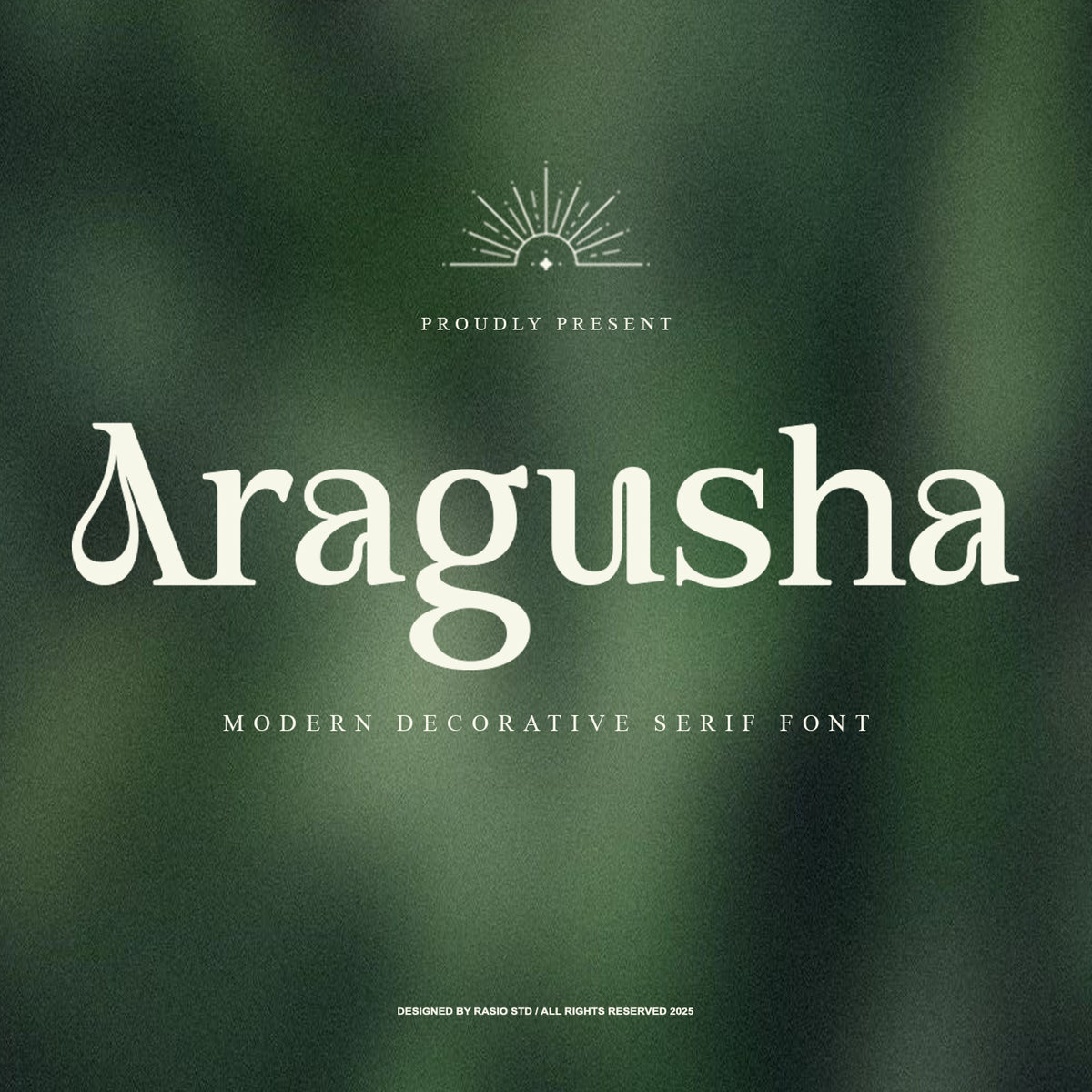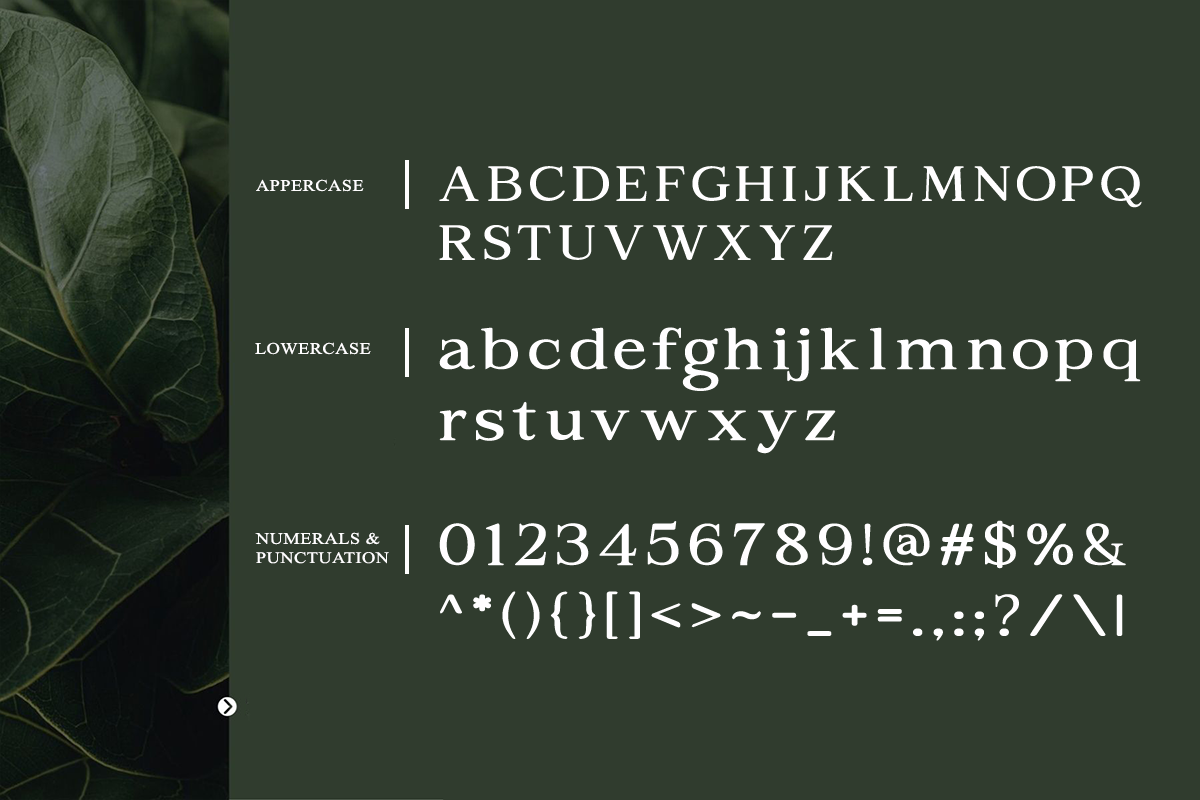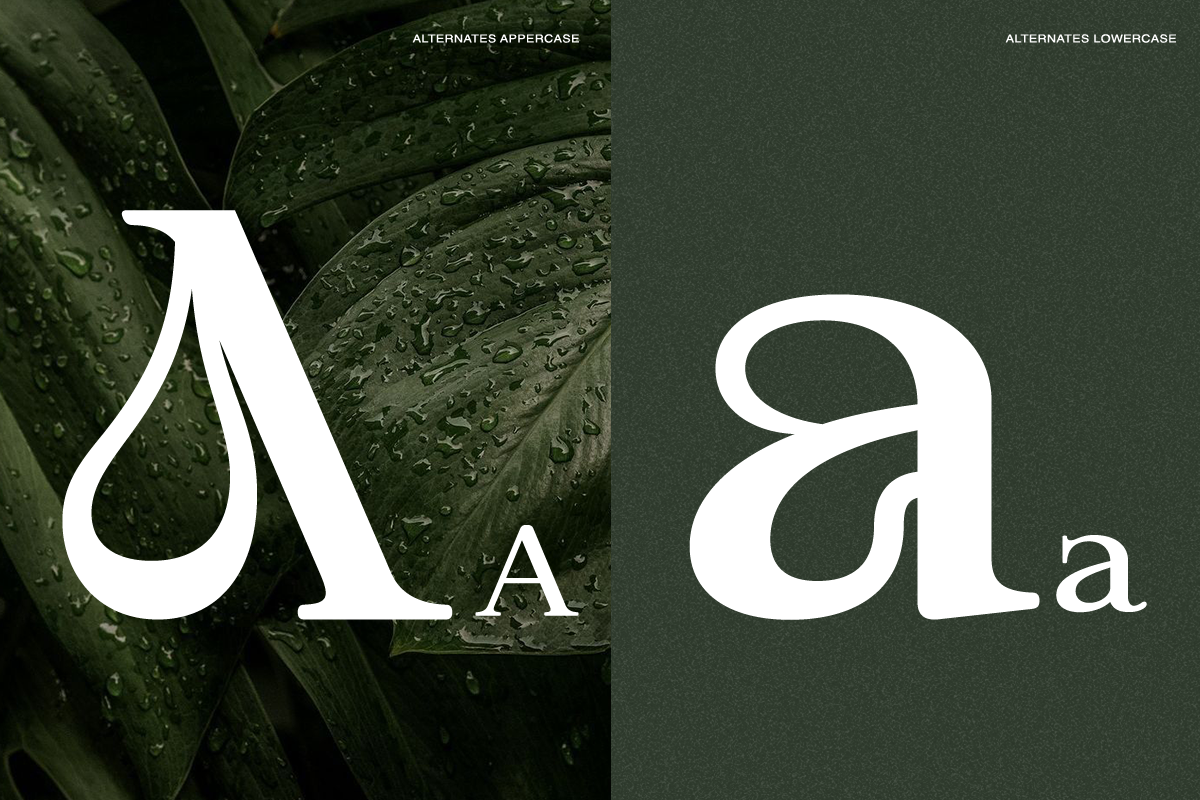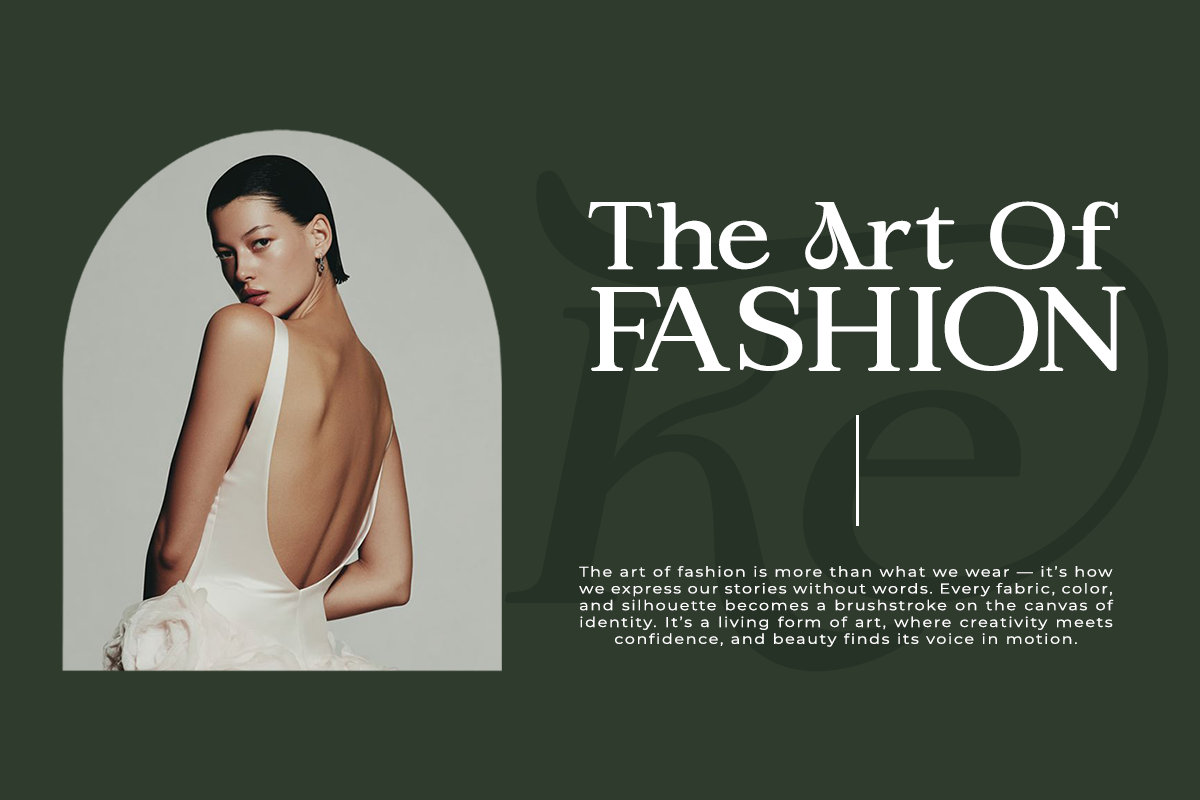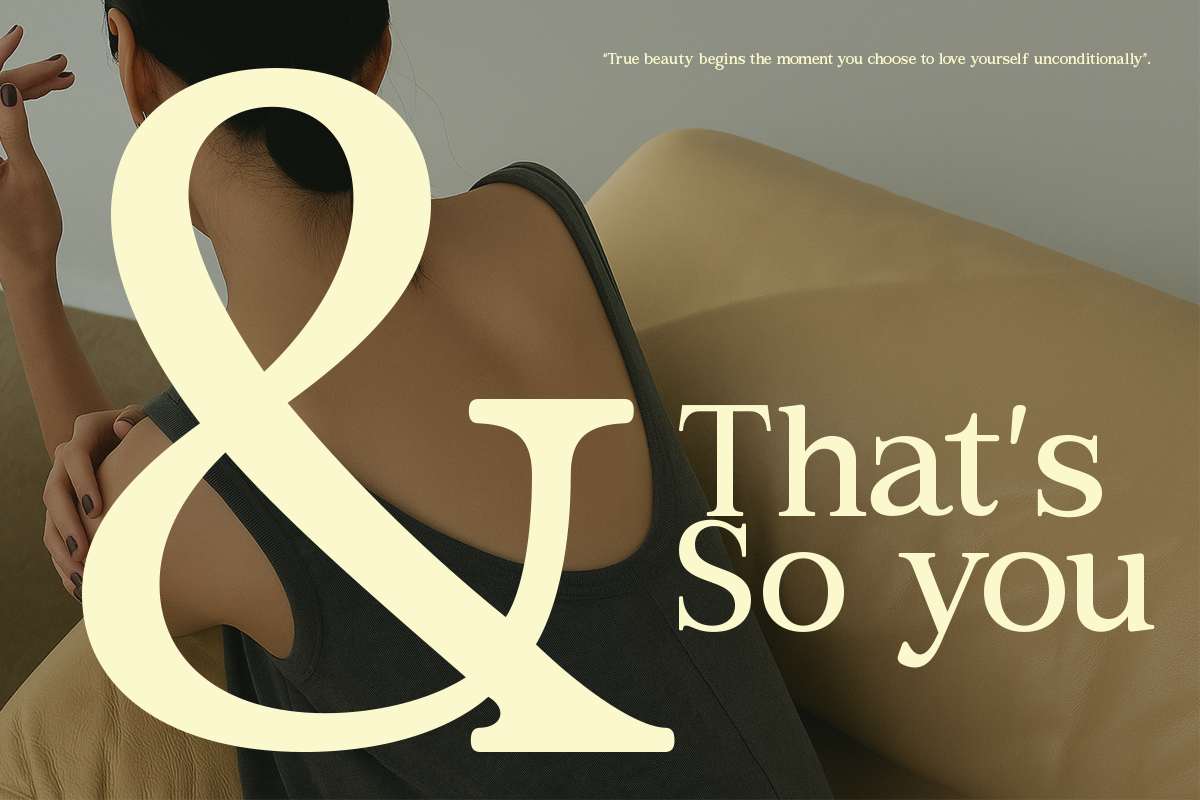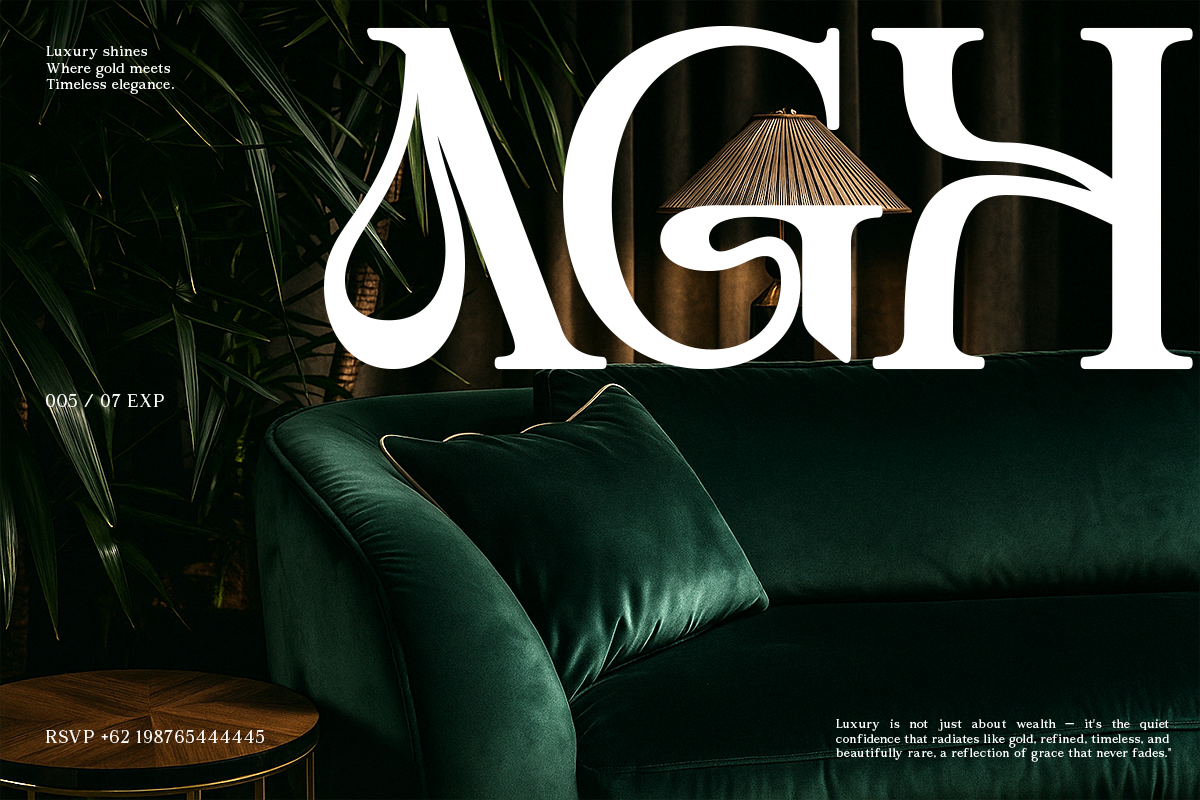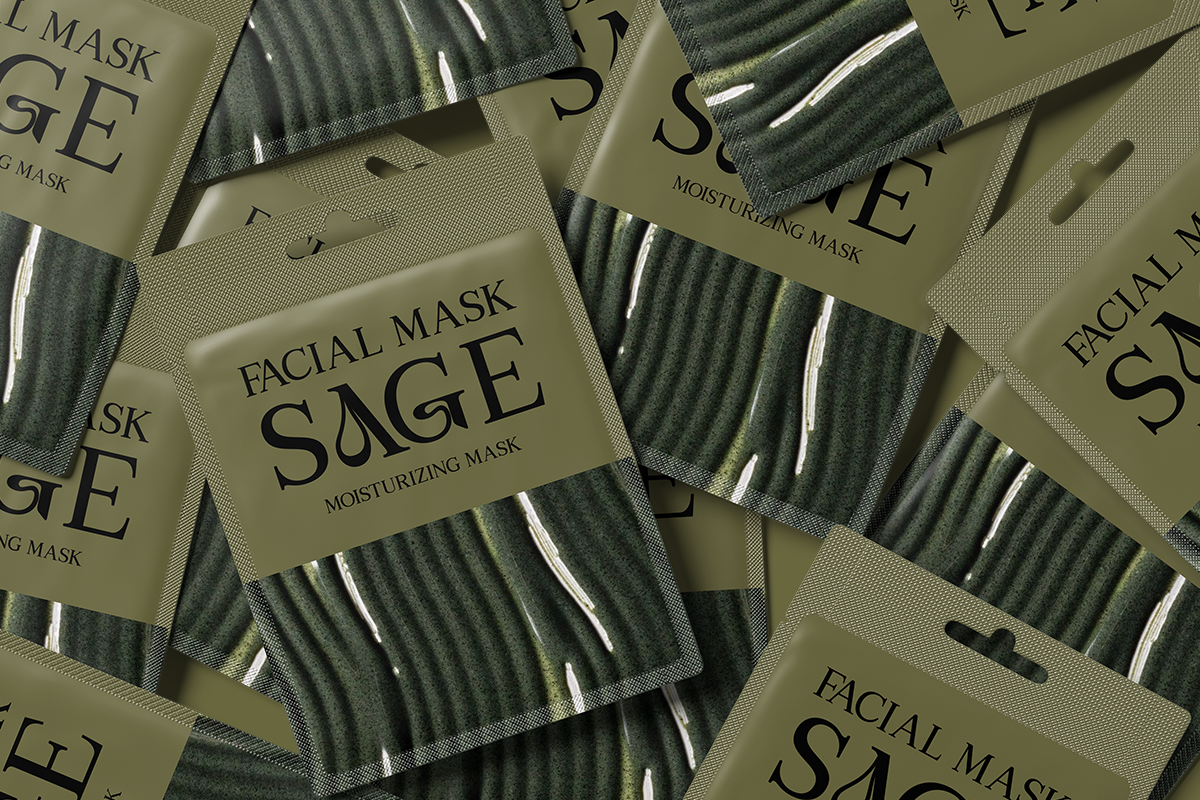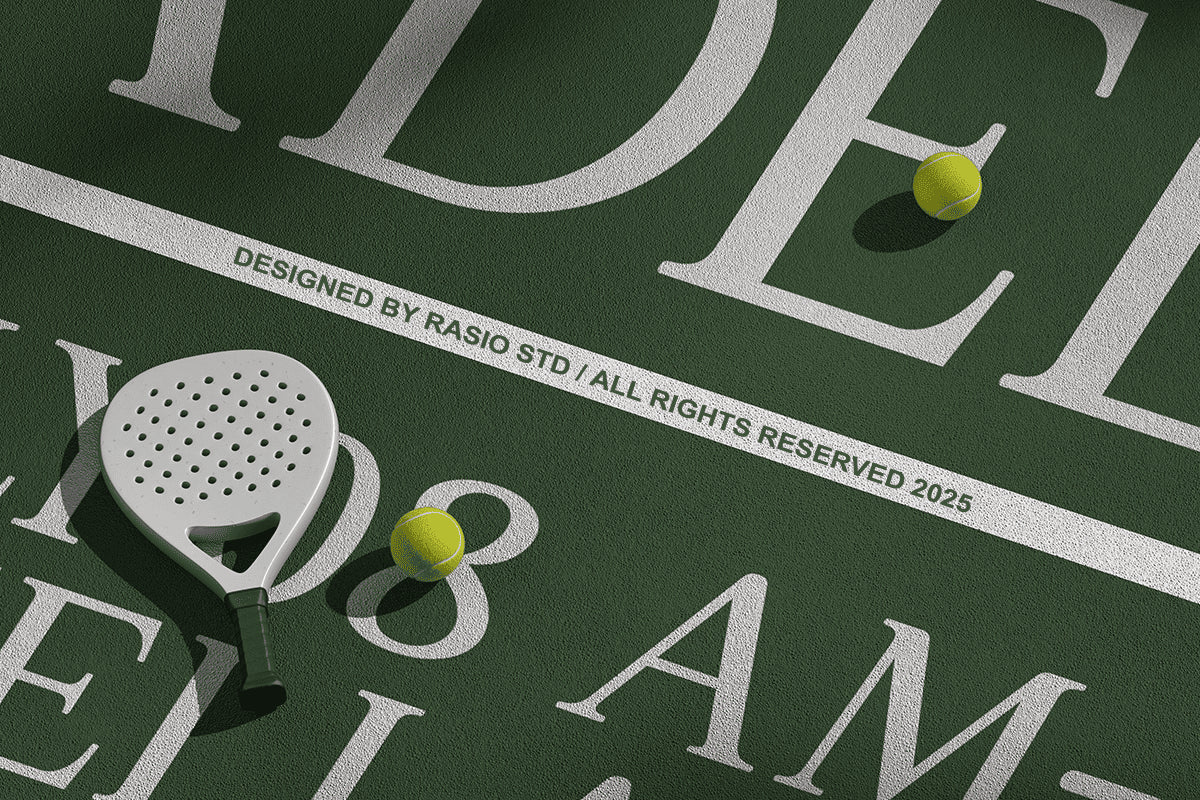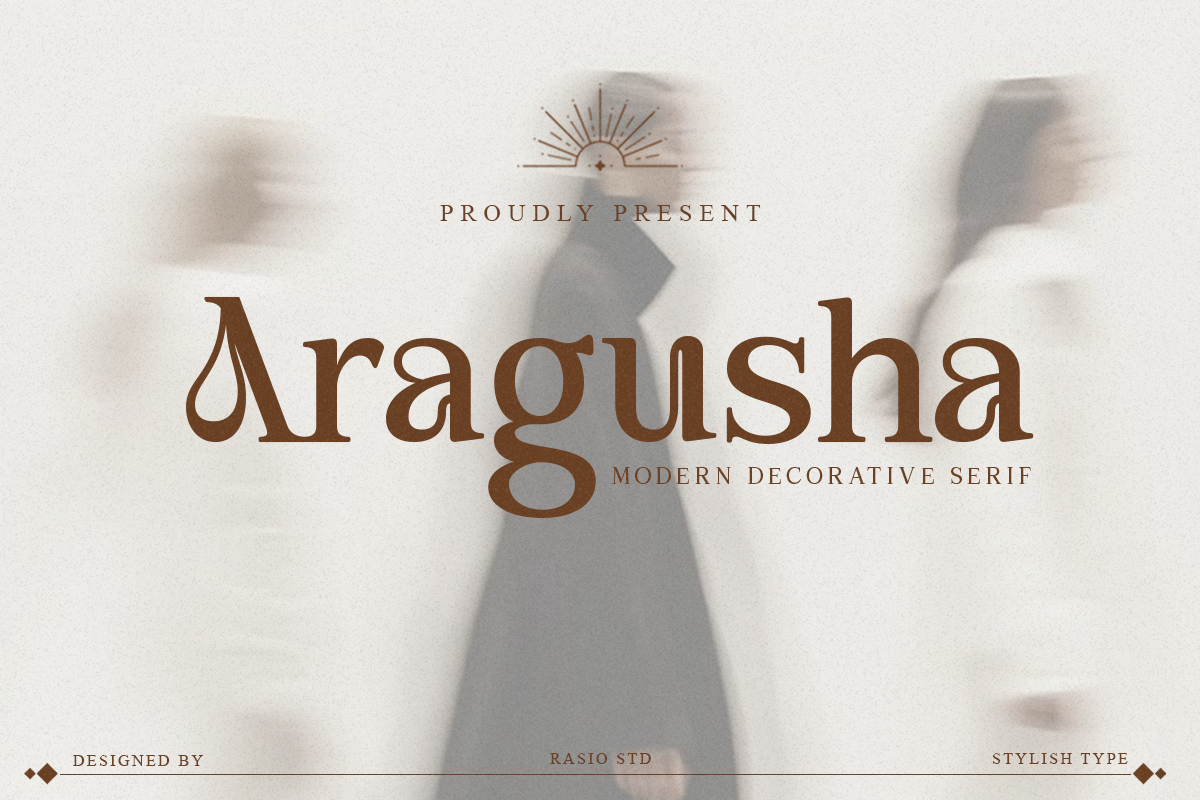
Aragusha Modern Decorative Serif Font
Aragusha is a modern decorative serif font that embodies refined luxury and timeless elegance. Its fluid teardrop terminals and graceful letterforms create a sophisticated impression, blending classical beauty with contemporary artistry. The high-contrast strokes and expressive alternates evoke a sense of craftsmanship and premium design, perfect for projects that require distinction and visual drama. Crafted for editorial layouts, fashion branding, and elegant packaging, Aragusha elevates typography into an art form where detail, style, and refinement coexist in harmony.
Relevance and Use Cases is perfect for luxury branding, fashion editorials, packaging design, wedding invitations, boutique logos, high-end advertising, and magazine headlines that emphasize sophistication and grace.
Numerals & Punctuation
Stylistic Alternates
High-Contrast Decorative Serif
Aragusha is a modern decorative serif font featuring high-contrast strokes, teardrop terminals, and stylistic alternates. It includes uppercase and lowercase letters, numerals, punctuation, and multilingual support, available in OTF, TTF, and WOFF formats.